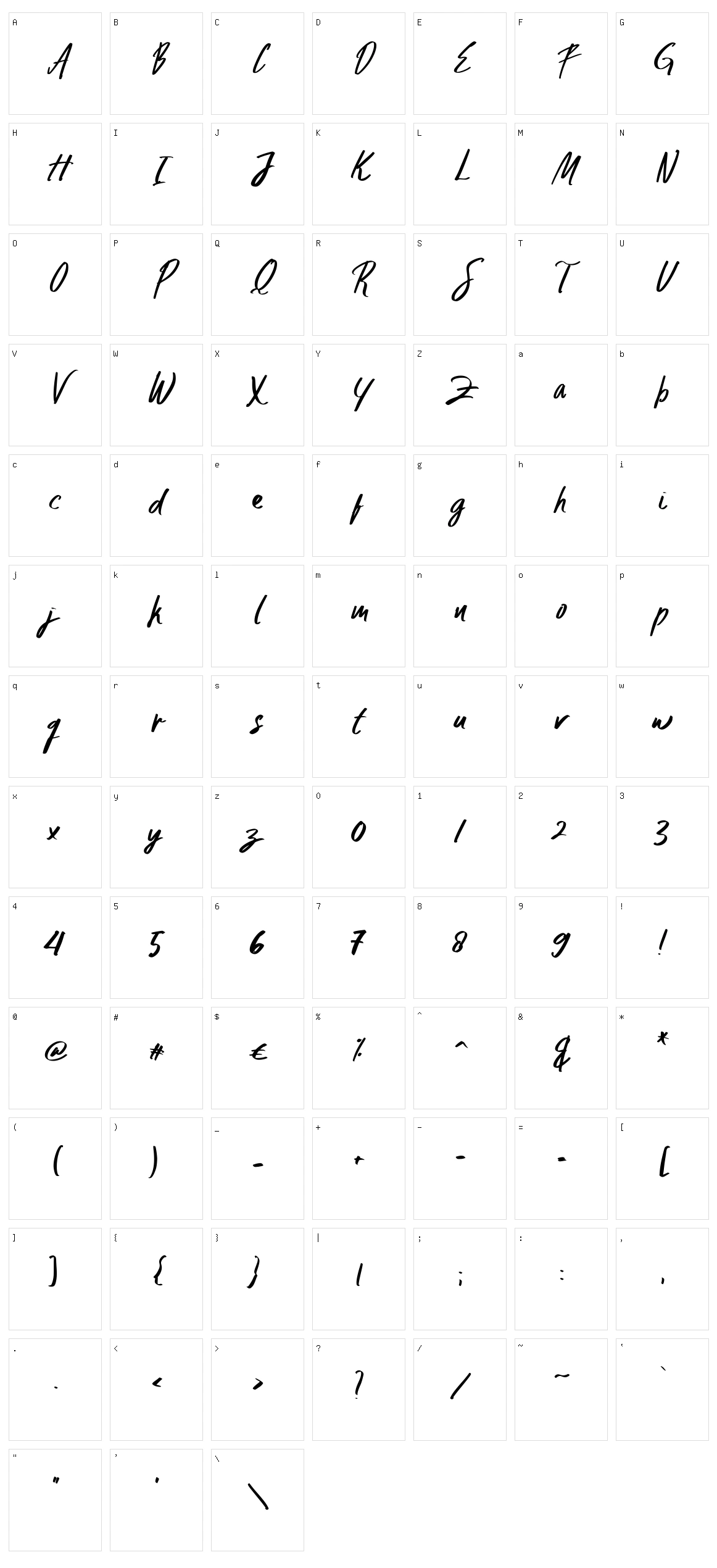
The free font Zoltan Brownhate is carefully designed by Damn Studio, showcasing a thoughtful balance of creativity and usability and falls under the Script font style. When you download the ZIP file, it contains only 28.21 KB of font files, making it lightweight and quick to download. Please review the license details below to understand permitted usage and distribution rights. If license information is not available, we recommend using this font for personal projects only or contacting the author directly for commercial usage permissions.